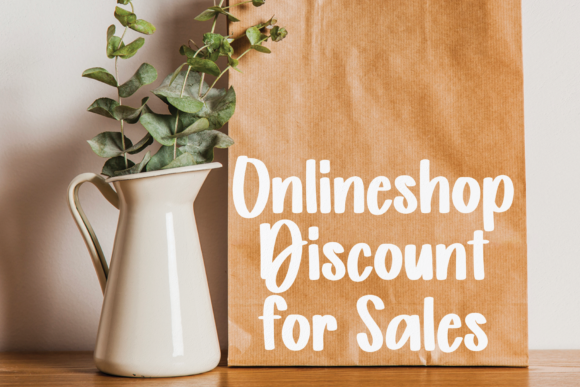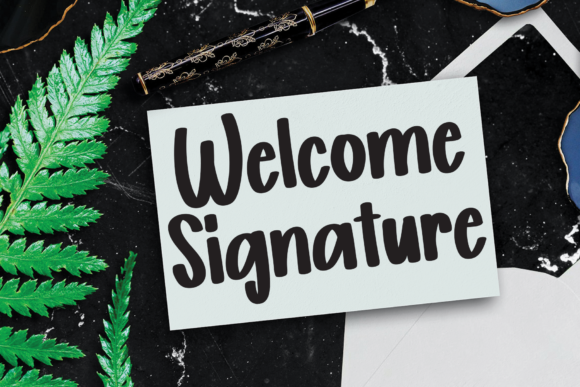
Birthday Vintage Font
db-ku.com - Script & Handwritten -- Birthday Vintage is a casual and bold handwritten font that’s great for delivering any message with confidence, authenticity and charm. It will elevate a wide range of crafting ideas, from cards, to branding, labels and much more.